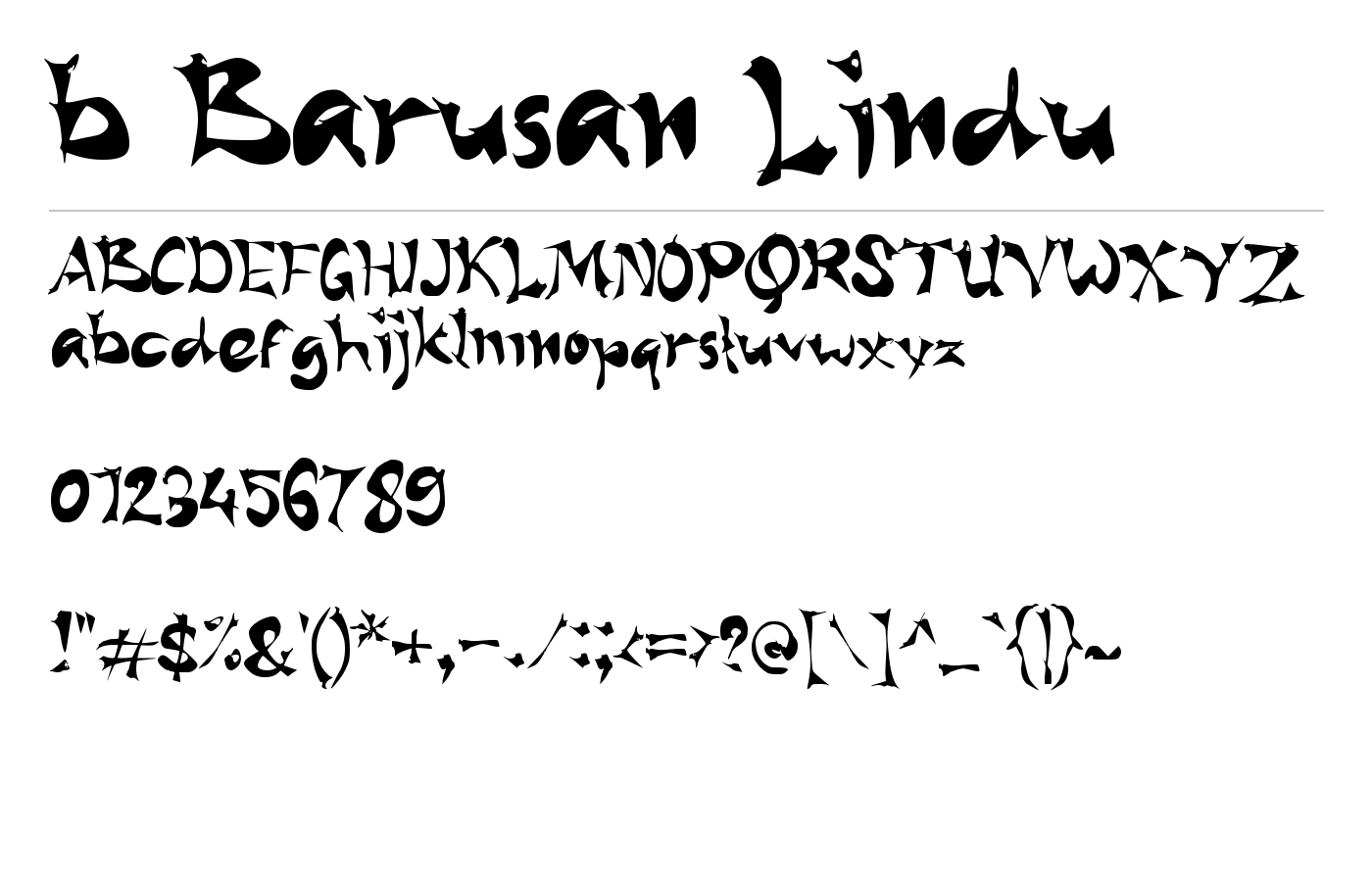
Barusan Lindu is a bold, decorative display font with a distinctive handwritten, brush-like style that features sharp, irregular edges and dynamic strokes. Its unique, artistic character makes it ideal for eye-catching headlines, logos, and creative projects that seek a bold, adventurous, and slightly mysterious vibe. This font works best in settings where a strong, individualistic aesthetic is needed rather than lengthy body text.
b Barusan Lindu Font
About b Barusan Lindu Font